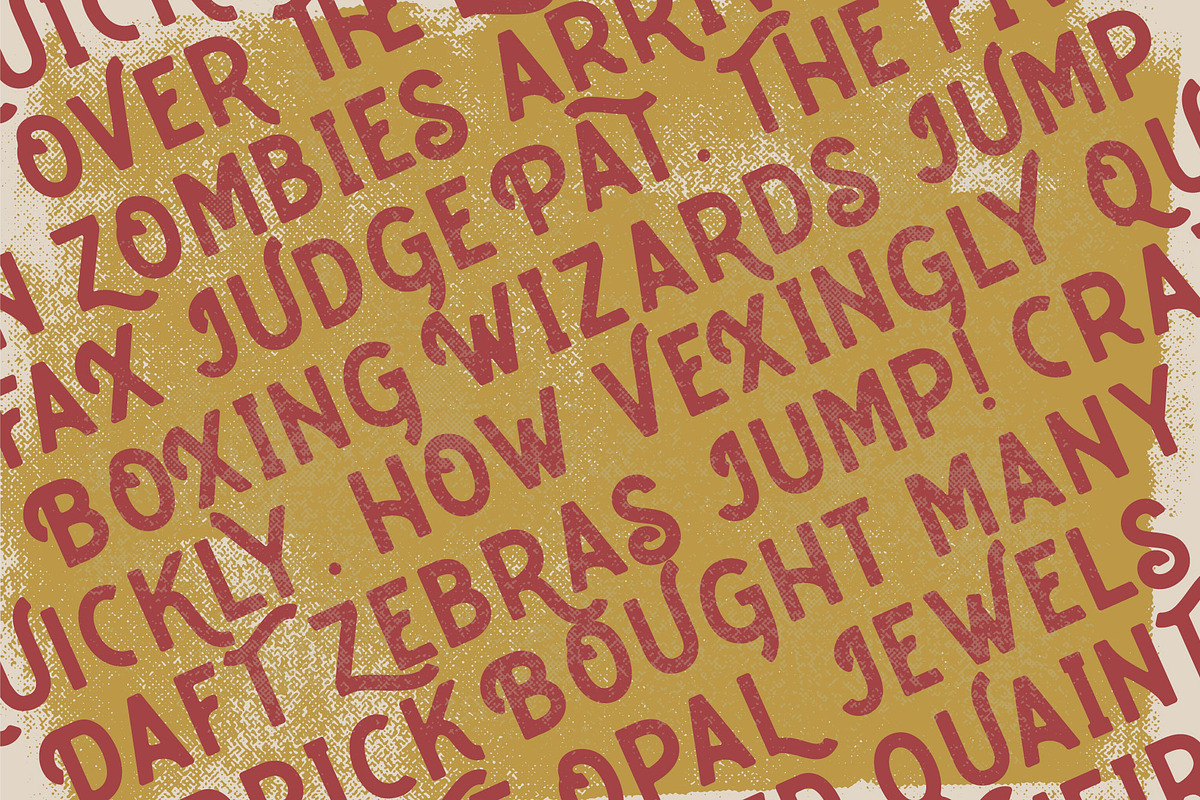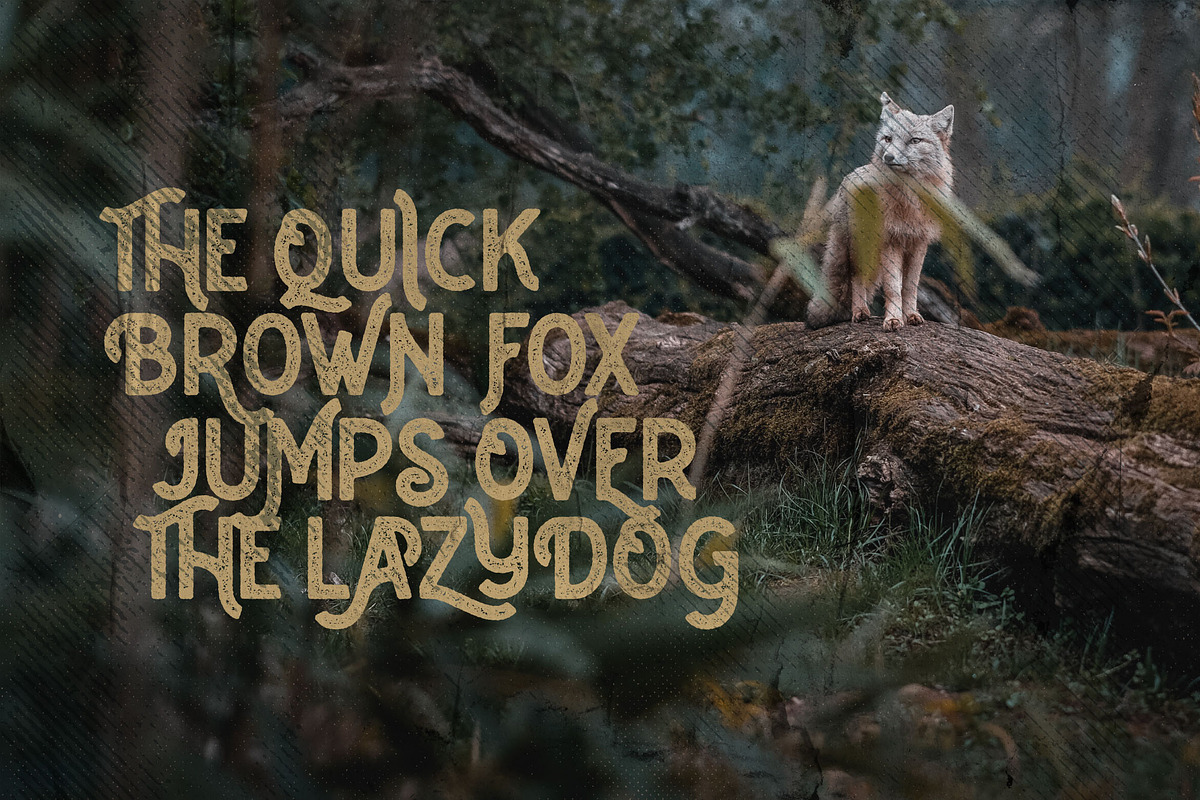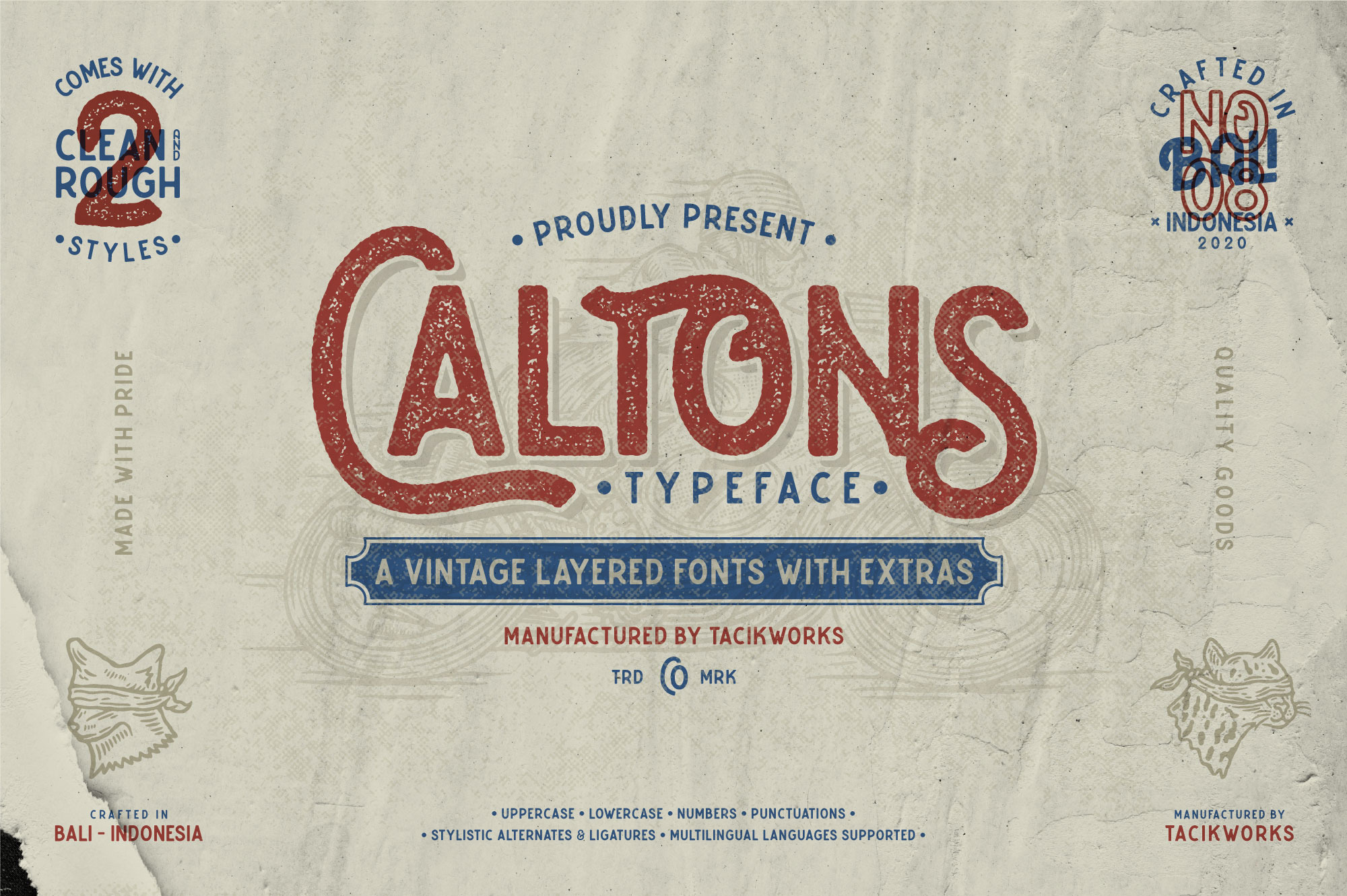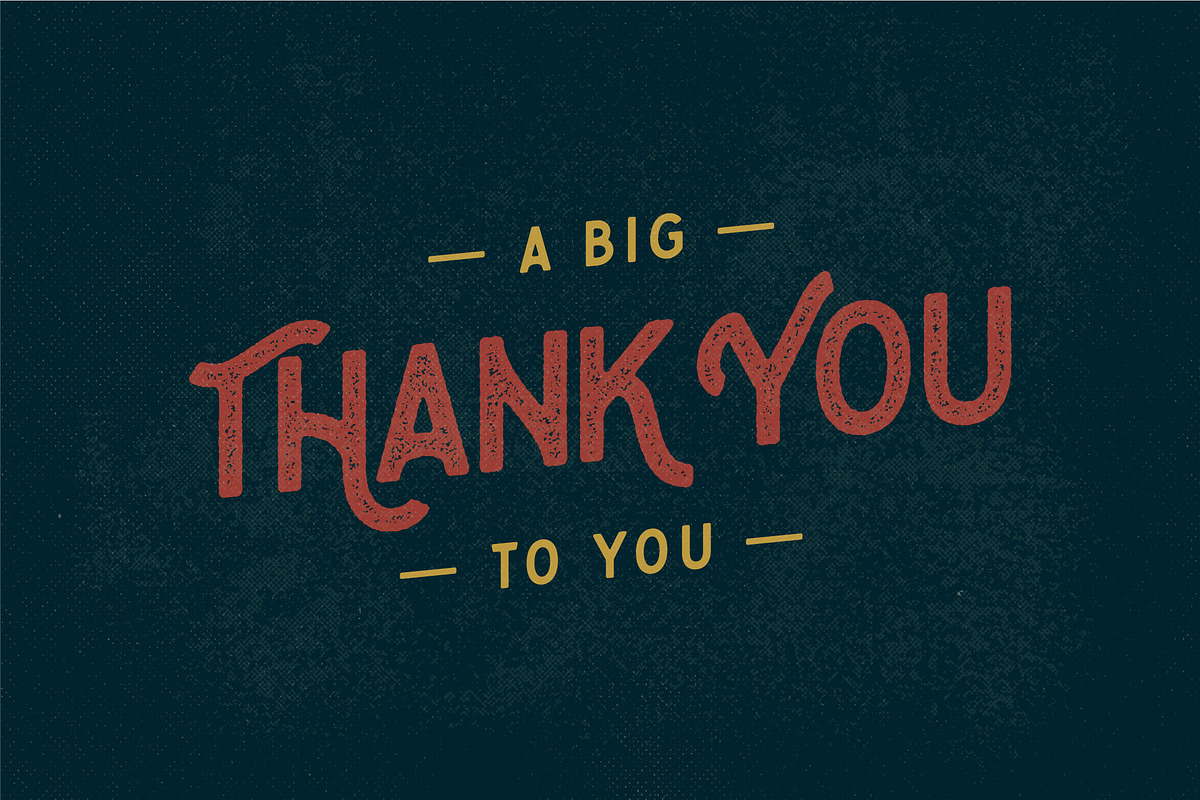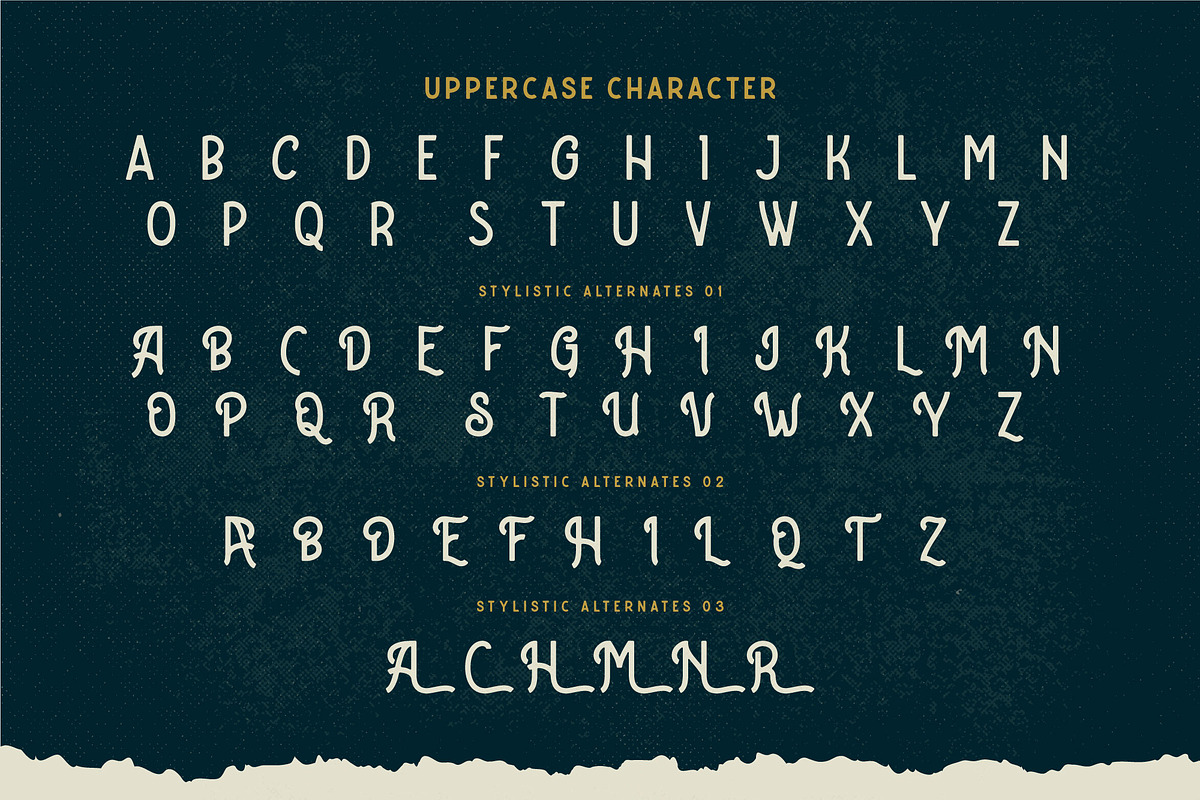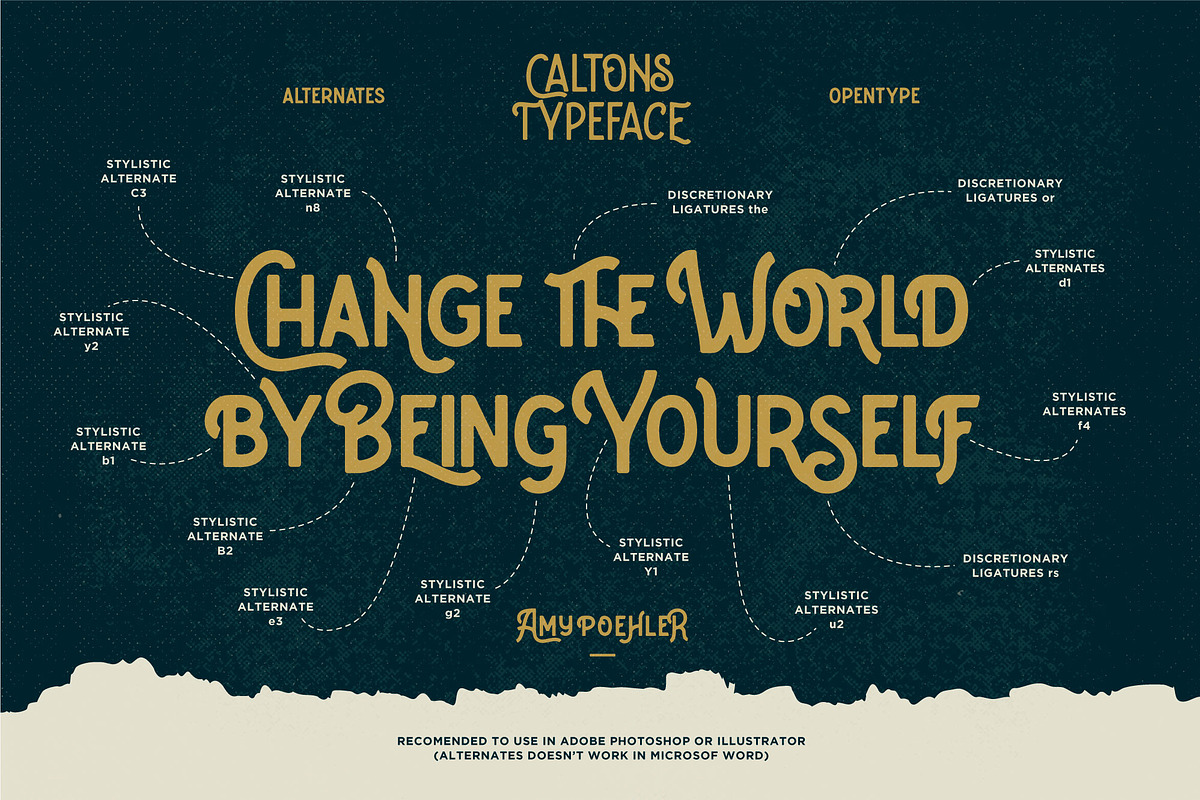
Caltons Typeface With Extra Bonus
Proudly present Caltons Typeface. This font is inspired by vintage designs with clean and rough lines. Make the classic impression of this font stand out more. This font has approximately 600 glyph characters including uppercase, lowercase, discretionary ligatures and standard ligatures alternatives. It is suitable for creating vintage designs such as logo posters, merchandise, clothing, brochures, business cards and others.
- Punctuations
- Stylistic Alternates & Ligatures
- Multilingual Languages Supported